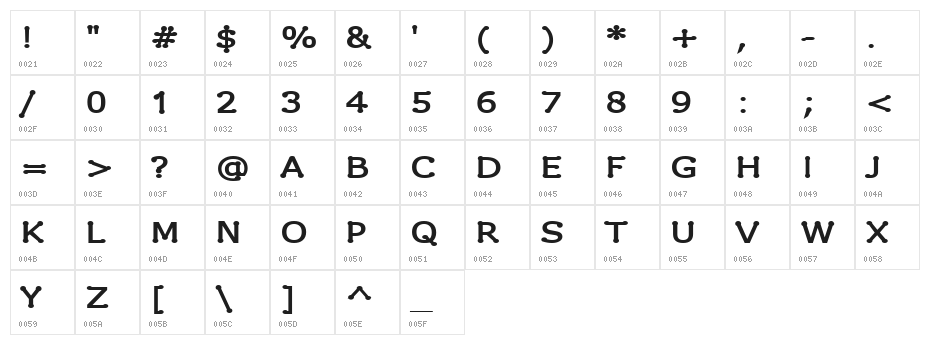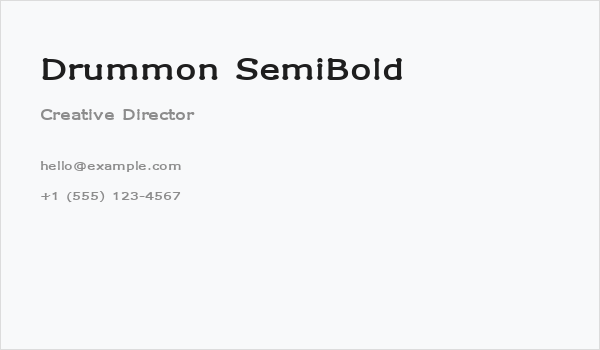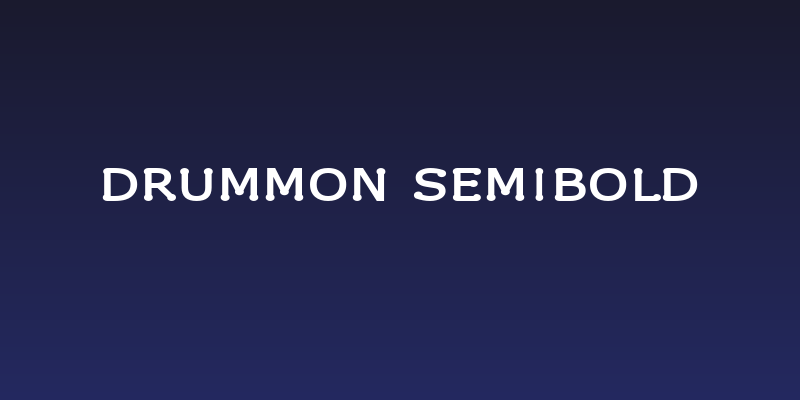
Drummon SemiBold Font
Drummon SemiBold Description
This font features a robust and slightly rounded design, giving it a friendly yet professional appearance. The characters are well-balanced with a consistent stroke width, making it highly readable. The uppercase letters are bold and commanding, while the lowercase letters maintain a smooth and approachable look. Numerals are clear and distinct, ensuring easy readability in various contexts. The special characters are crafted with precision, adding to the font's versatility. This font's overall design is suitable for both digital and print media, offering a modern yet timeless appeal.
| Proposed Projects | Ideal for branding, advertising, headlines, and editorial design. |